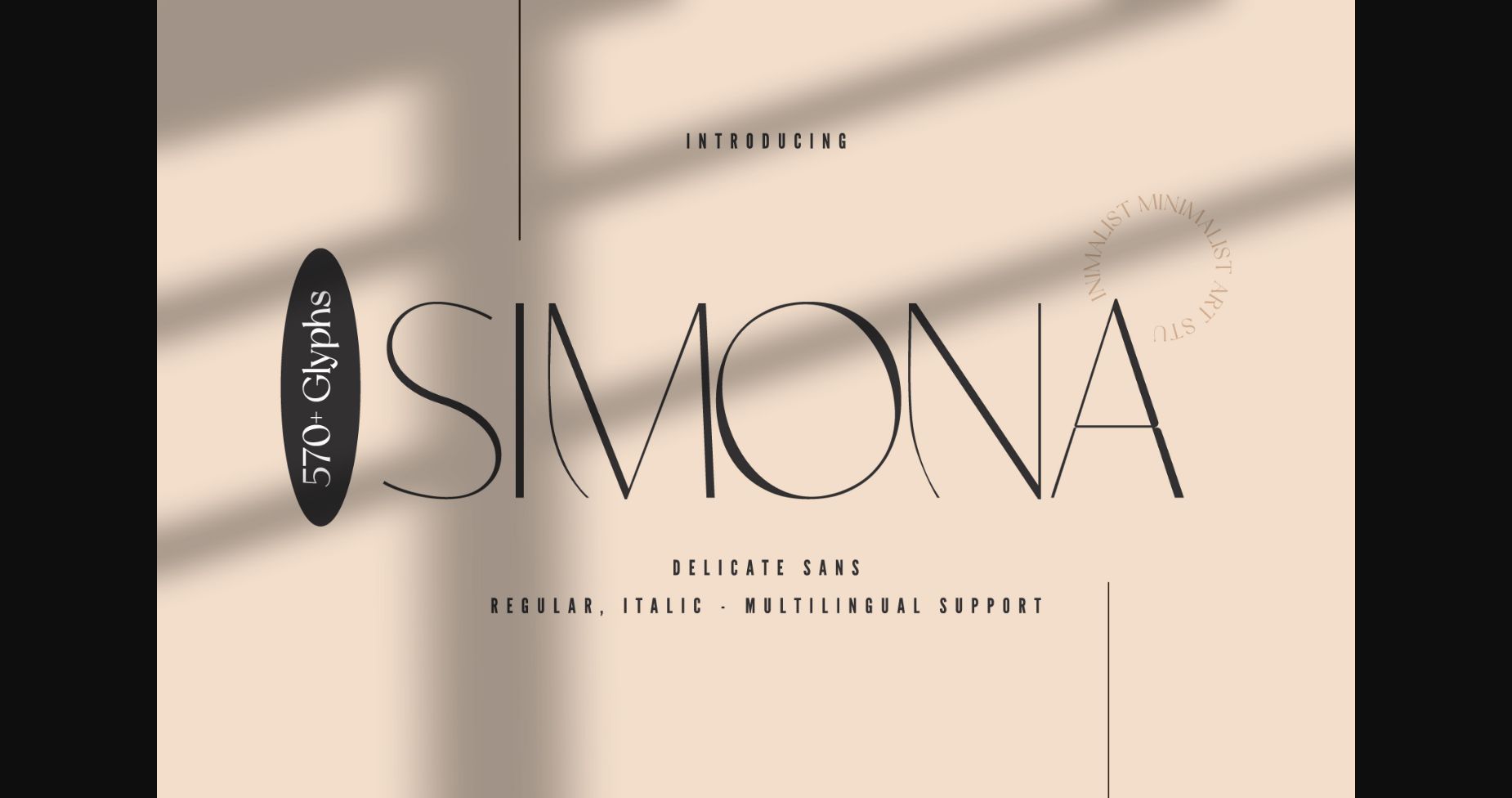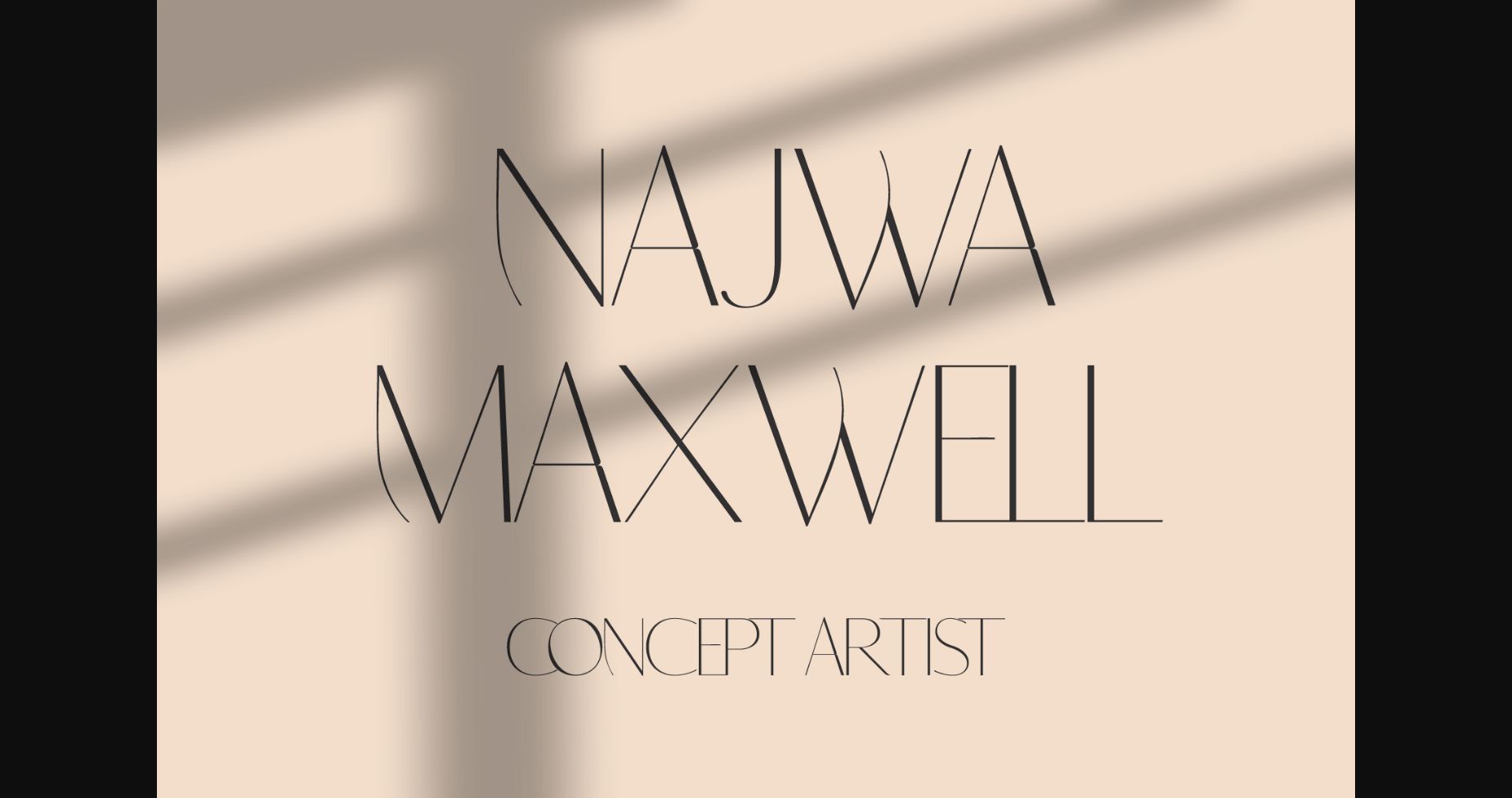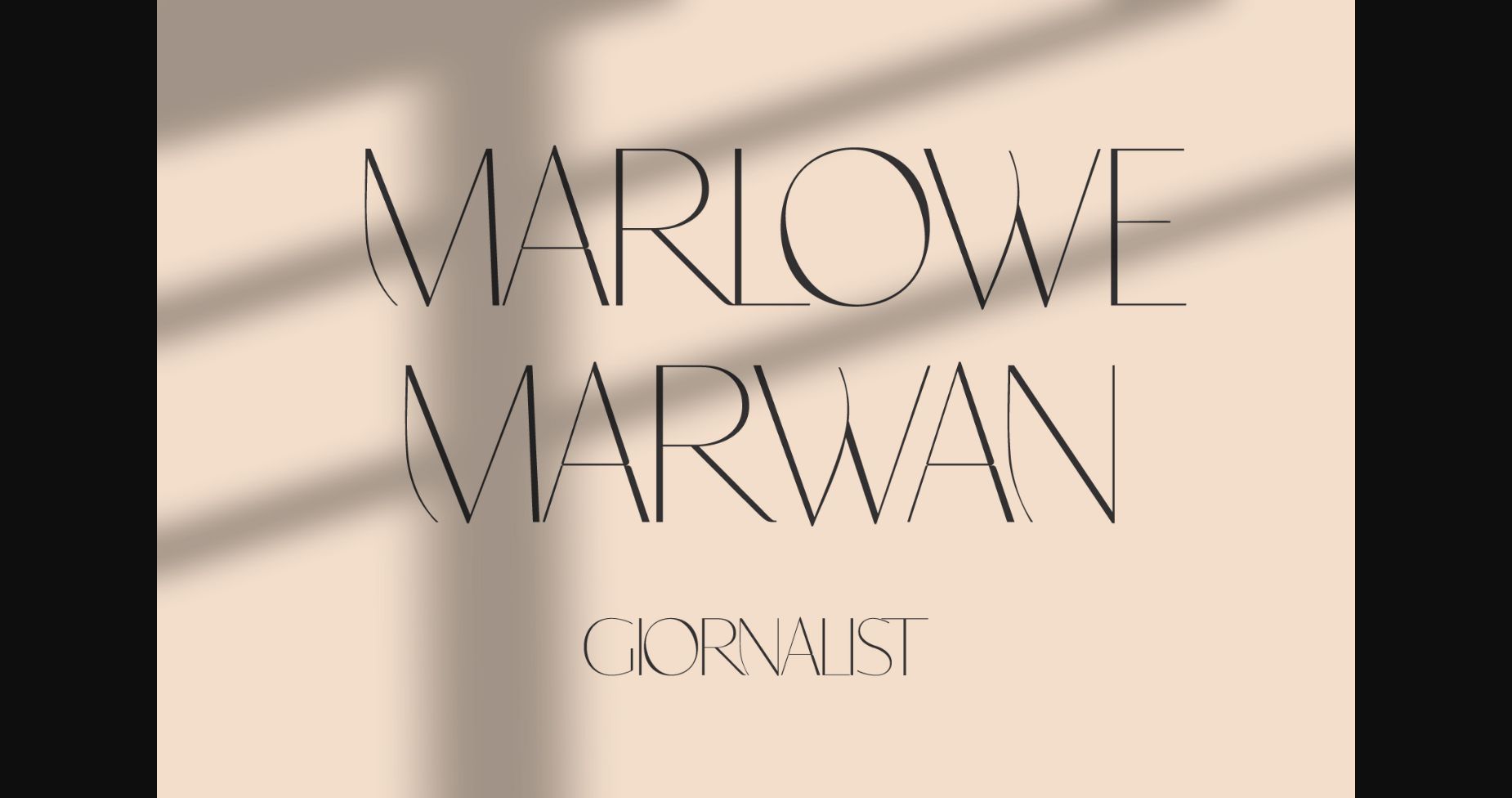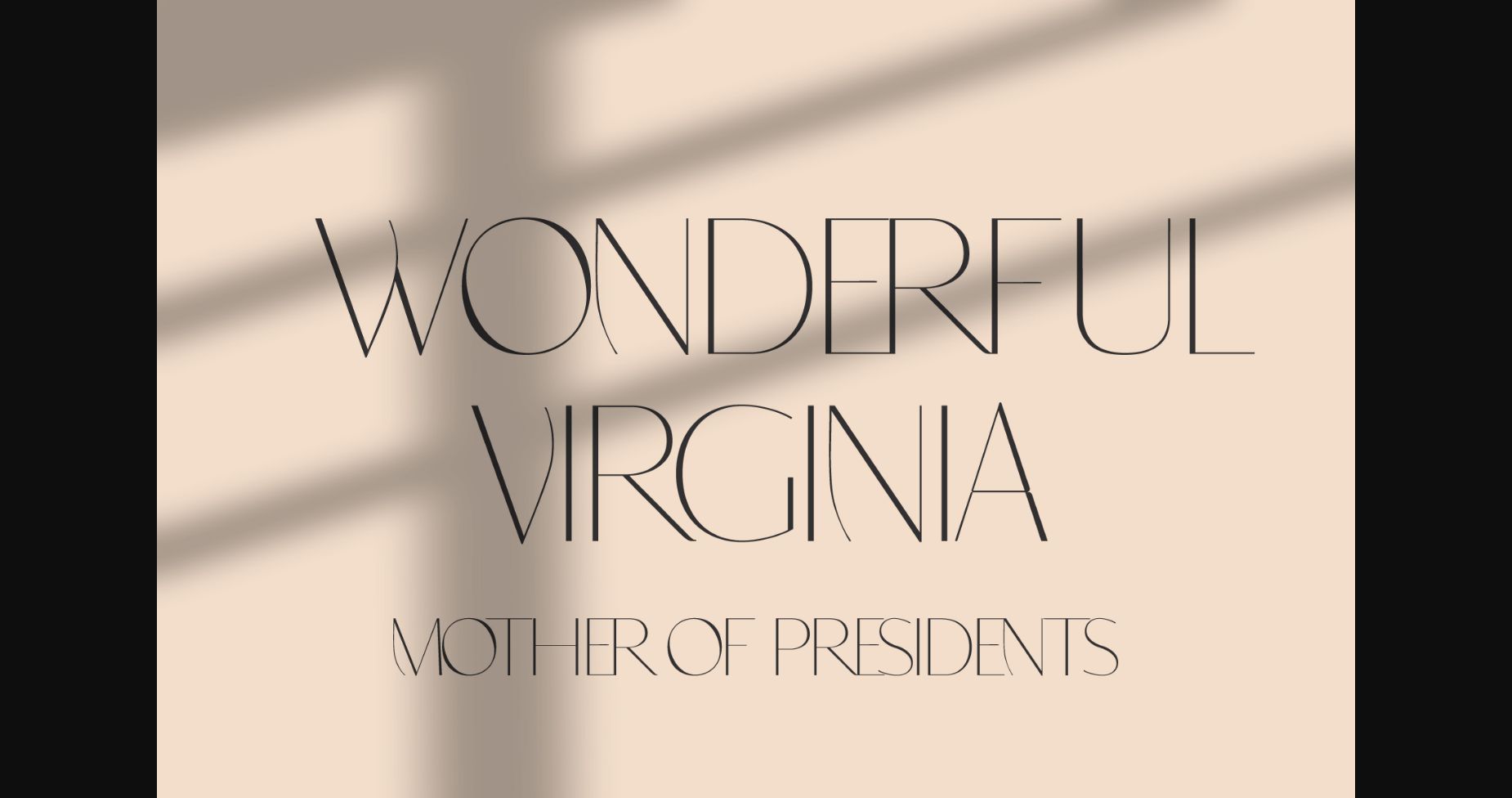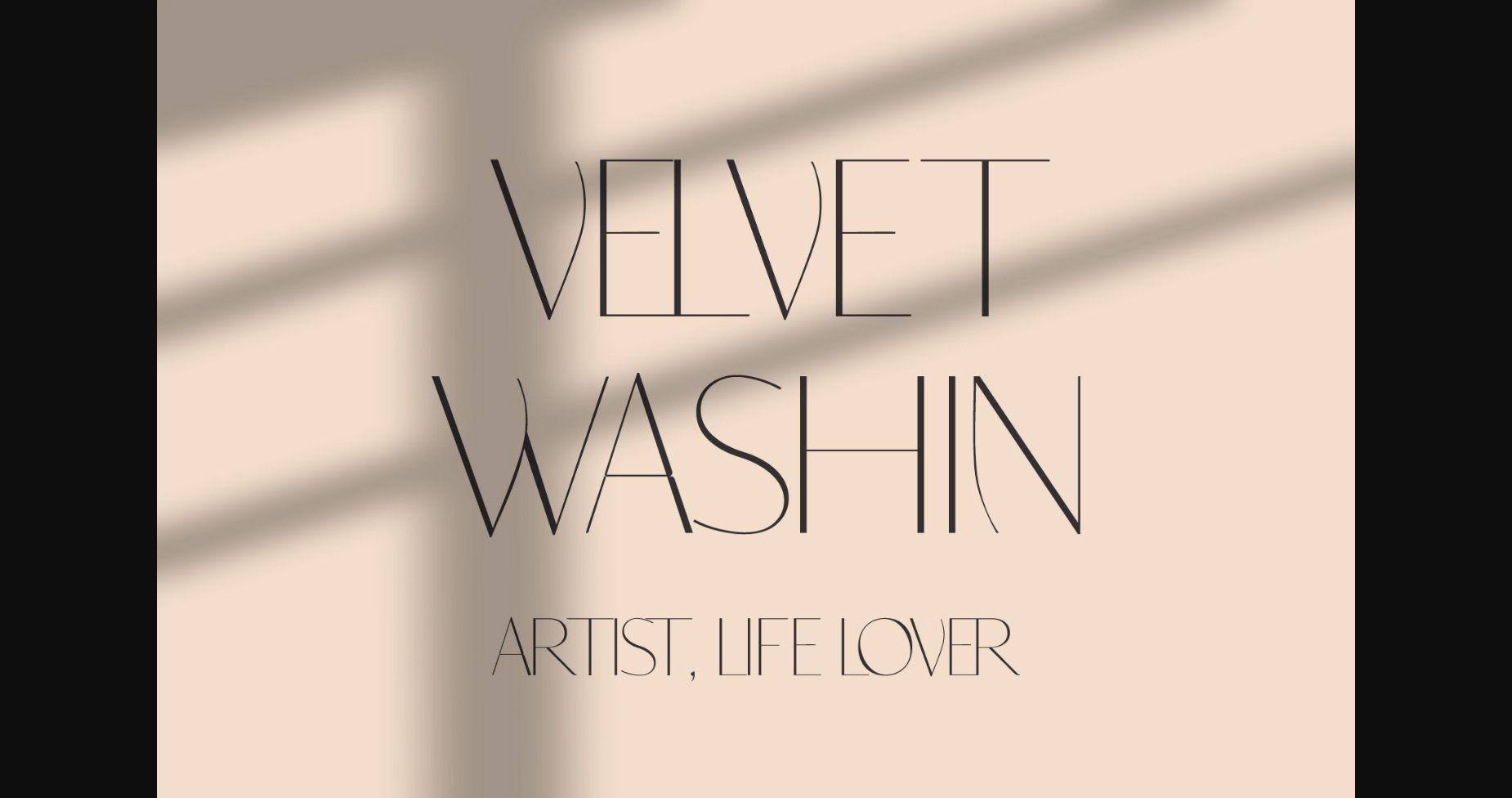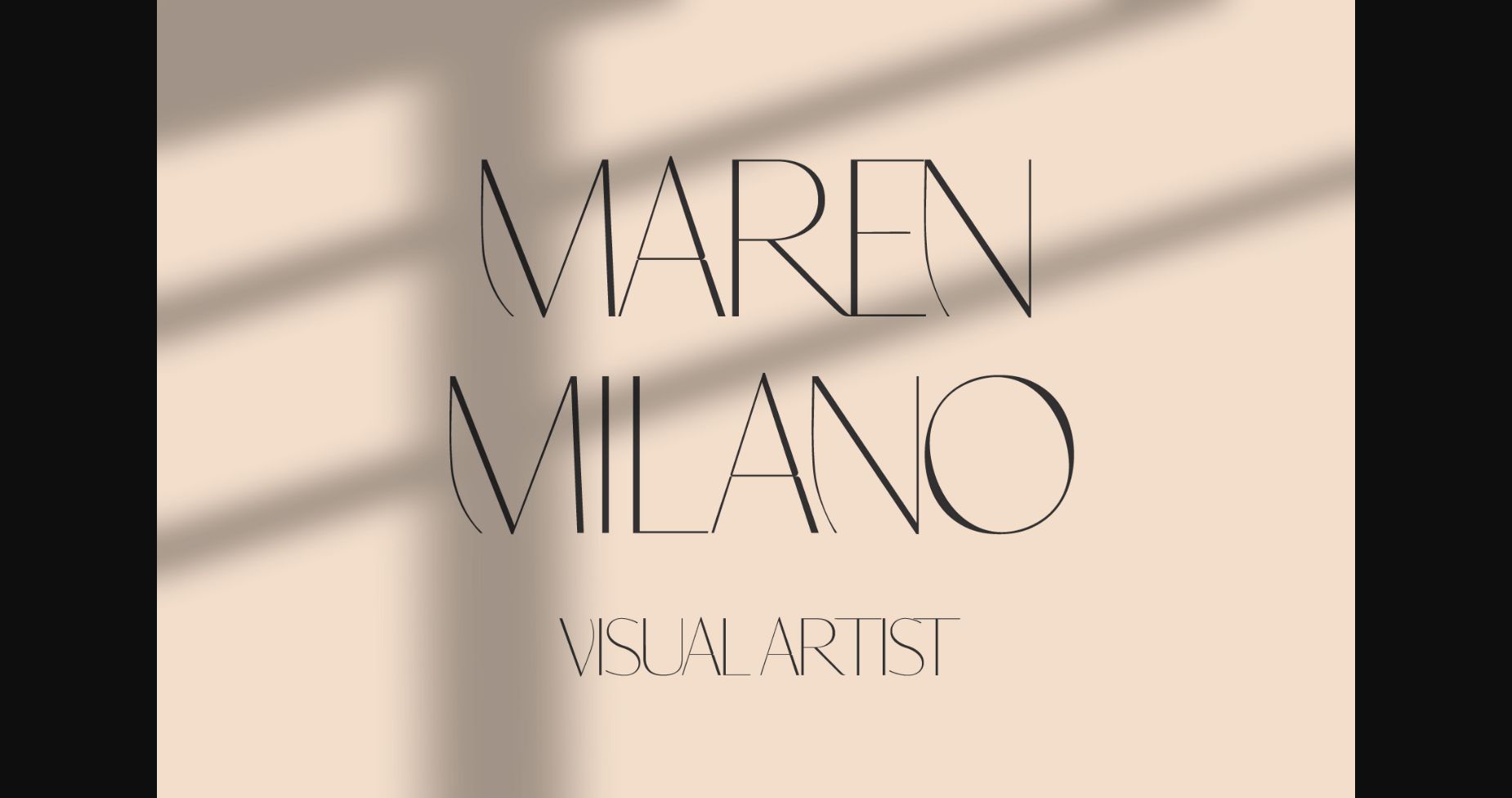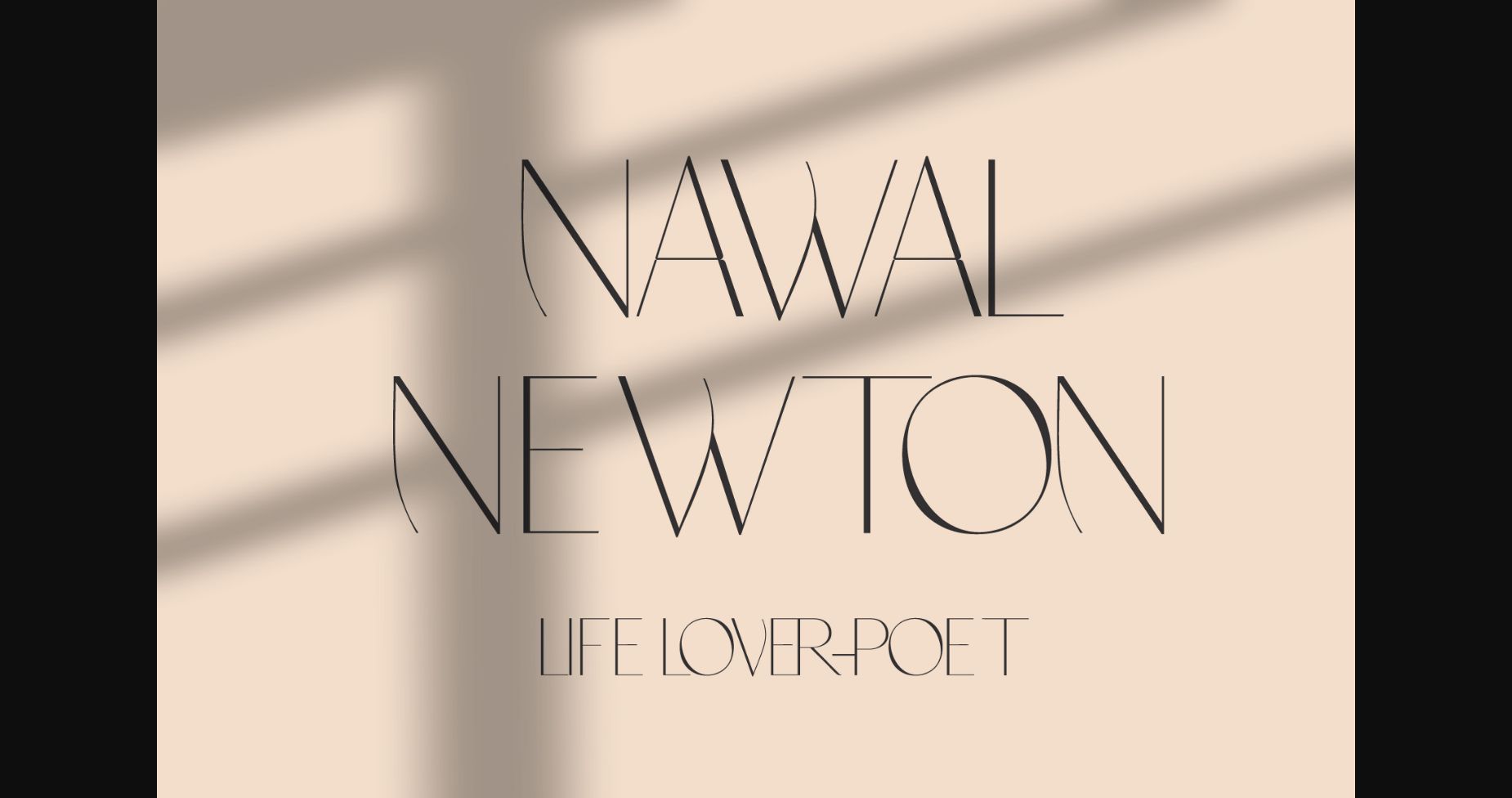
Simona Font
About Simona Font
Introducing Simona, a strikingly elegant and sophisticated font that exudes a minimalist charm. This thin sans serif font is perfect for modern designs that require a touch of class and refinement. With over 570 glyphs, Simona offers a versatile range of characters, symbols, and punctuation marks to suit your every design need.
The font is available in both regular and italic weights, making it easy to switch between styles for different purposes. The thin strokes and clean lines give Simona a polished look that is perfect for branding, logos, editorial designs, and much more. Whether you’re designing for print or digital, Simona’s simplicity and elegance will help your message shine through.
This font’s attention to detail and careful design makes it a must-have for any designer looking for a versatile and sophisticated font. With its minimalist charm, Simona is sure to elevate any design project and give it that extra touch of elegance that sets it apart from the rest. Try it out today and see how it can help your designs shine.